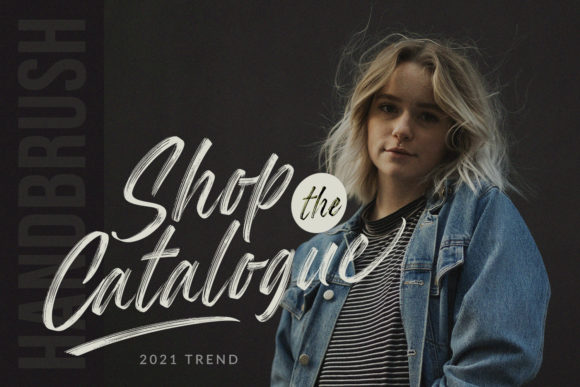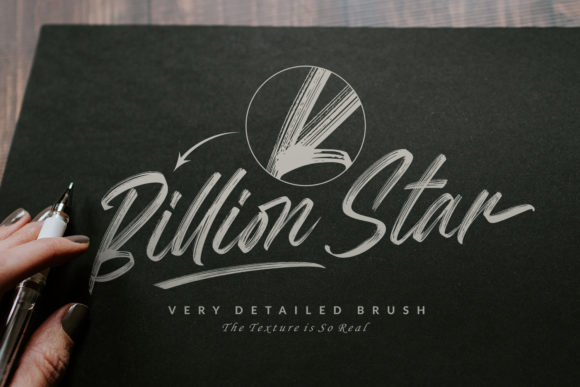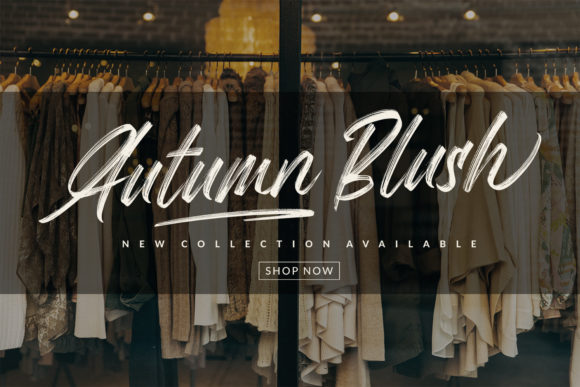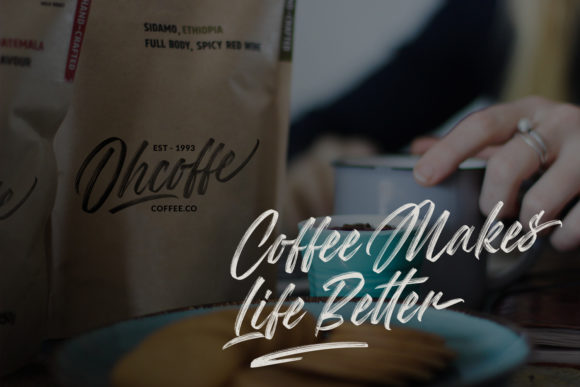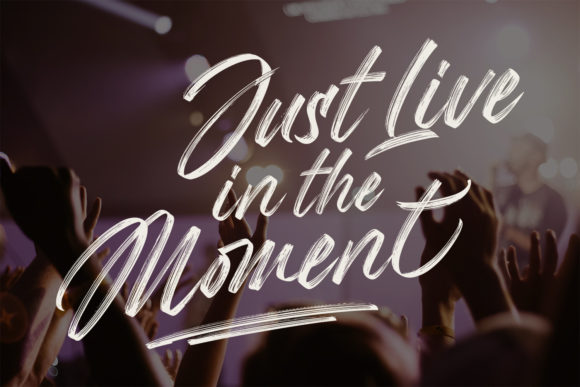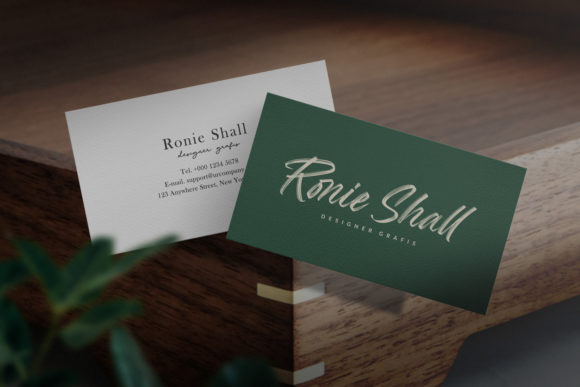
Introduction to Monday Handbrush Font
Monday Handbrush is a lovely and brushed handwritten font.
It is the best choice for creating eye catching logos, branding and quotes This font is PUA encoded which means you can access all of the glyphs and swashes with ease.